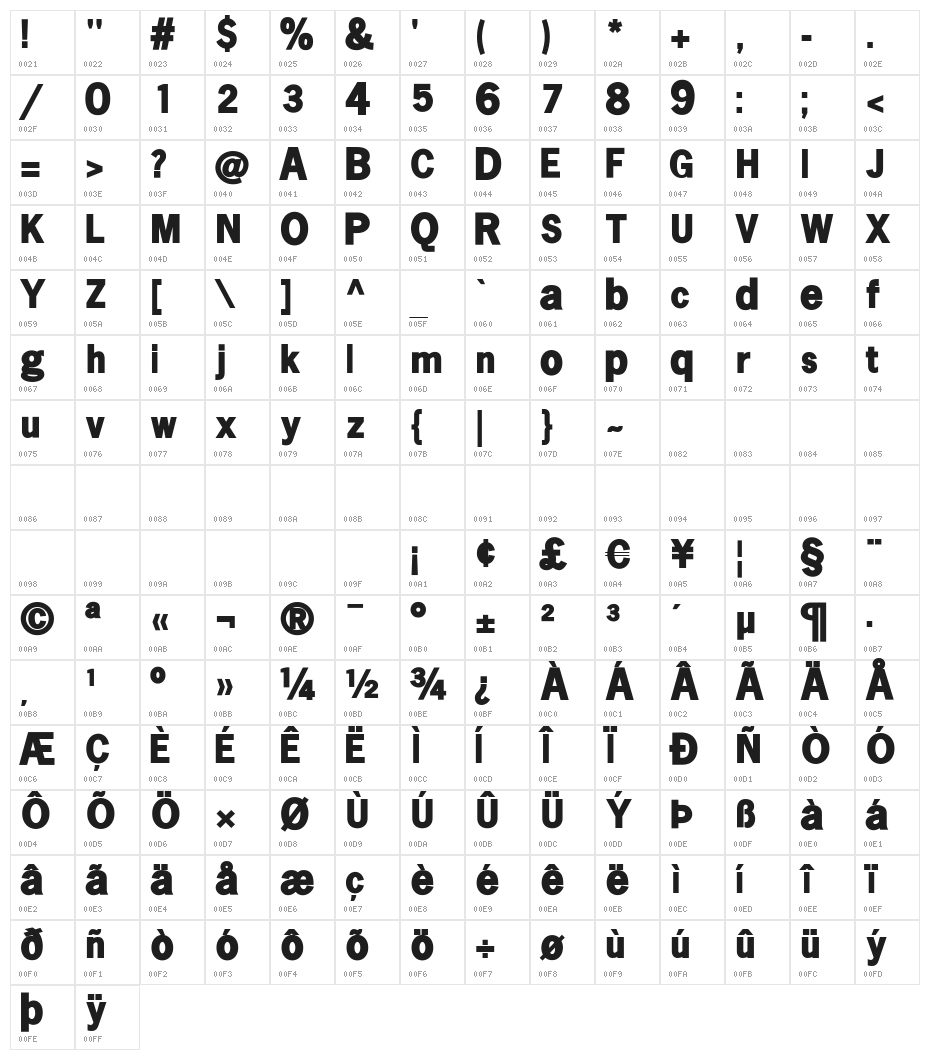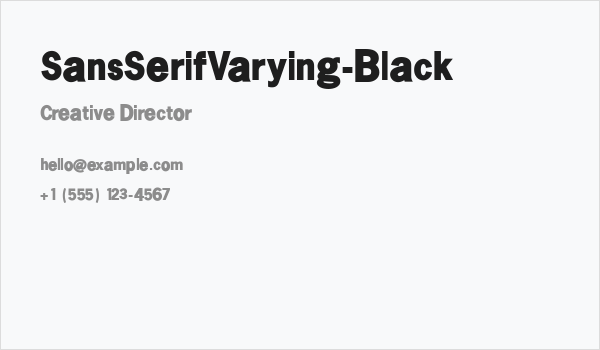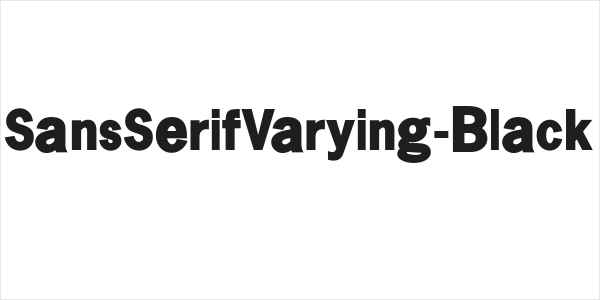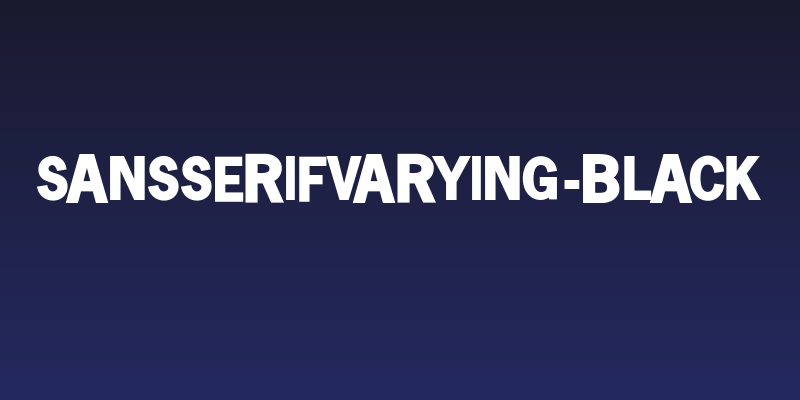
SansSerifVarying-Black Font
SansSerifVarying-Black Description
This font features a bold and impactful sans-serif style, characterized by its thick, uniform strokes and clean lines. The uppercase and lowercase letters are well-proportioned, providing a strong visual presence. The numerals are equally bold, ensuring readability and emphasis. Special characters are designed with the same weight and clarity, making them stand out effectively. This font's robust appearance makes it suitable for attention-grabbing designs.
| Proposed Projects | Ideal for headlines, posters, branding materials, and any design requiring a bold statement. |